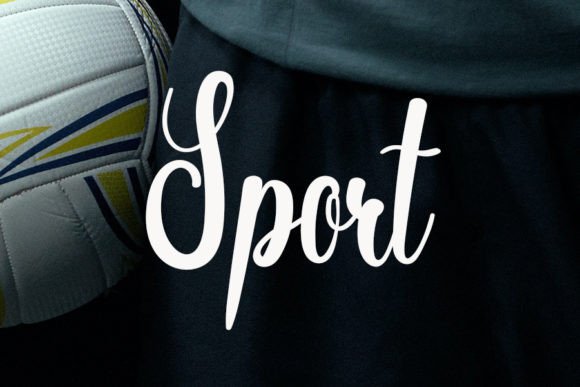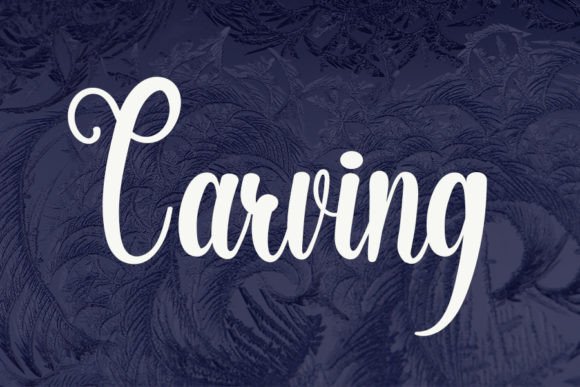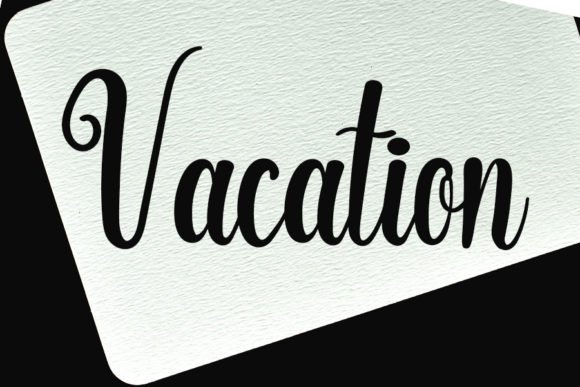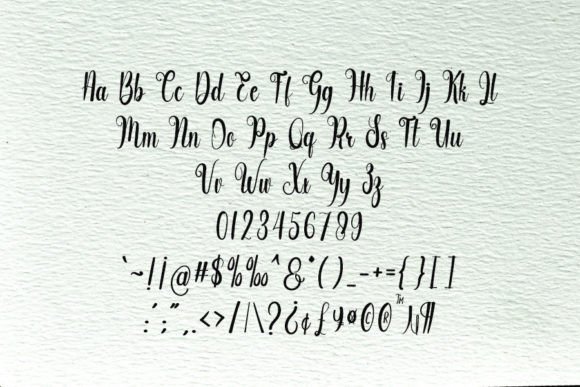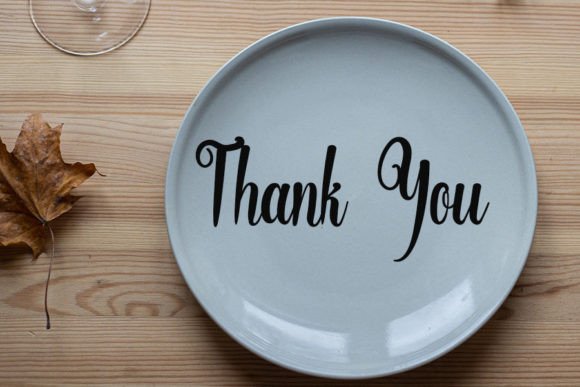
Discover the Whimsy of Adventure Font
Have you ever sat down with a blank sheet of paper, a pen in hand, and felt the urge to create something truly special? Maybe it’s a wedding invitation, a heartfelt birthday card, or a sweet love letter. Whatever the occasion, you want your words to shine with personality and charm. That’s where the Adventure Font comes in – a delicate, handwritten font that embodies the joy and romance of a bygone era.
Perfect for designers looking to add a touch of whimsy to their designs, the Adventure Font is a valuable addition to any creative toolkit. Its dainty letters and elegant curves will transport your audience to a world of wonder and enchantment. Whether you’re crafting a wedding invitation, a greeting card, or a custom sign, the Adventure Font is sure to bring a smile to your audience’s face.
Adventure Font Key Features
- Font Family: The Adventure Font family includes 4 weights (Light, Regular, Bold, and Black) and 2 styles (Regular and Italic) in each weight, providing a wide range of design possibilities.
- Unique Characteristics: The Adventure Font features a unique blend of modern and classic elements, with a rugged, adventurous feel that’s perfect for outdoor, travel, or action-related designs.
Review of Adventure Font
I must say, I was quite excited to dive into the world of Adventure Font and see what it has to offer. Here’s my honest review:
✨ One of the things that caught my attention was the unique and playful style of this font. It’s perfect for creating a sense of excitement and adventure in any project, whether it’s a game, a website, or a book cover. The font is well-designed and has a lot of character.
✨ Another aspect that I appreciate is the wide range of weights and styles available. This allows designers to create a consistent look throughout their project and add a touch of personality to their work.
- ⚠️ The font may not be suitable for body text due to its playful nature and potential readability issues.
- ⚠️ Some users may find the font too bold or overpowering, which could be a drawback in certain situations.
- ⚠️ The font may not be compatible with all operating systems or devices, which could lead to formatting issues.
Overall, I think Adventure Font is a great addition to any designer’s toolkit. It’s perfect for creating a sense of excitement and adventure in projects, and its wide range of weights and styles makes it a versatile choice. However, it may not be suitable for all projects or situations, and designers should be aware of its limitations.
Tips for Getting the Most Out of Adventure Font
Use Adventure Font for headings or titles to add a sense of adventure.
Combine Adventure Font with other fonts to create a unique and eye-catching design.
Adventure Font is ideal for:
Travel brochures and marketing materials.
Outdoor and adventure-themed websites and social media.
Creating a sense of excitement and energy in your design.